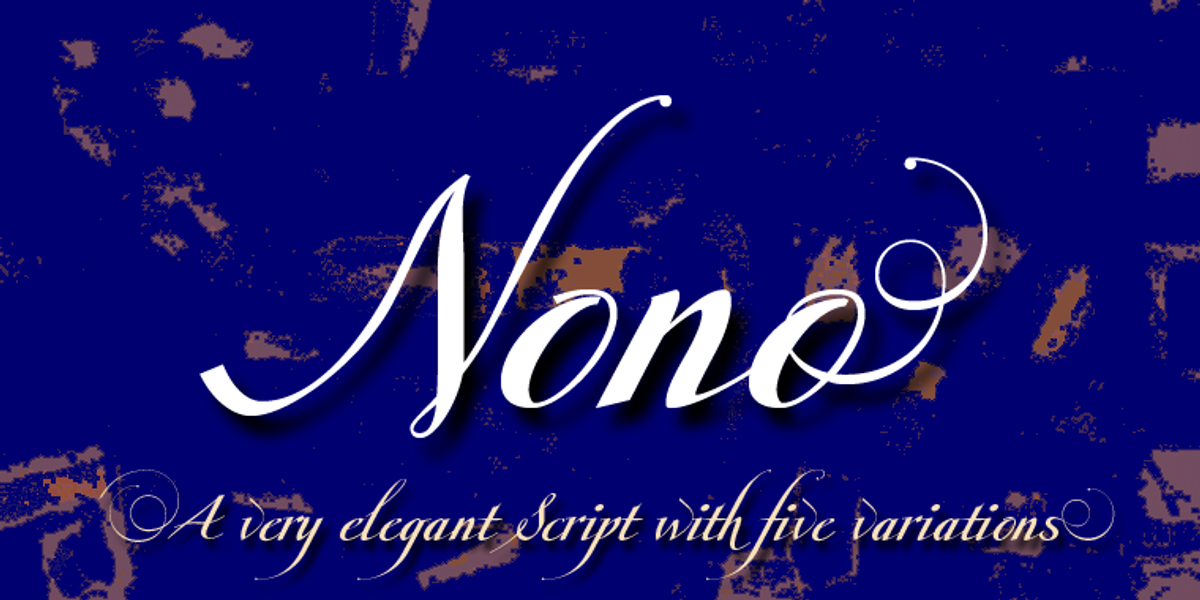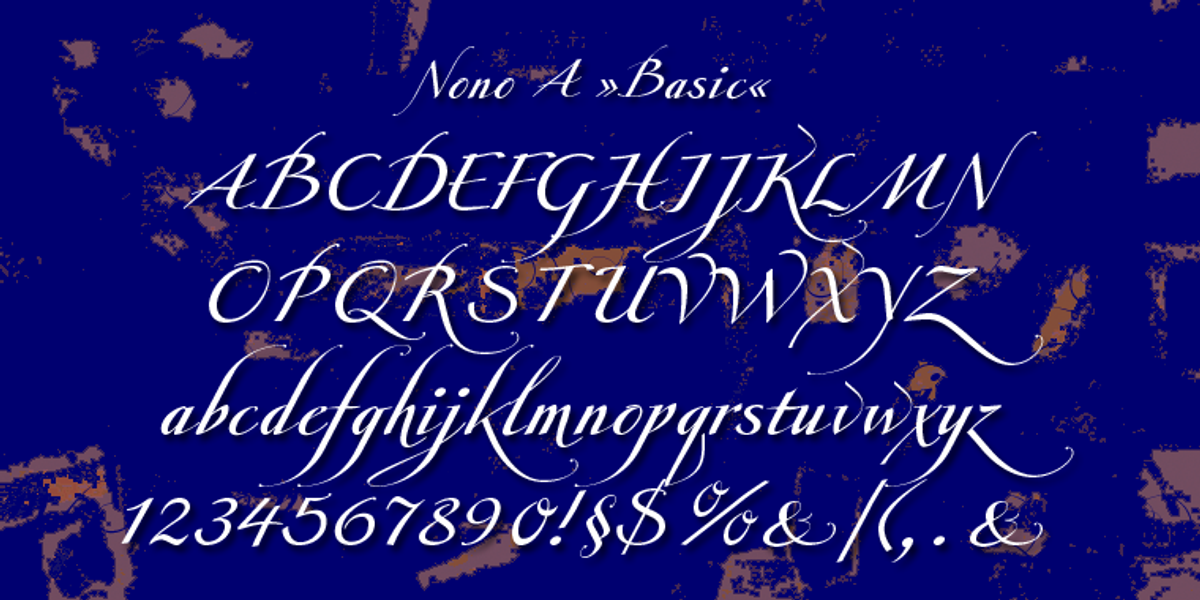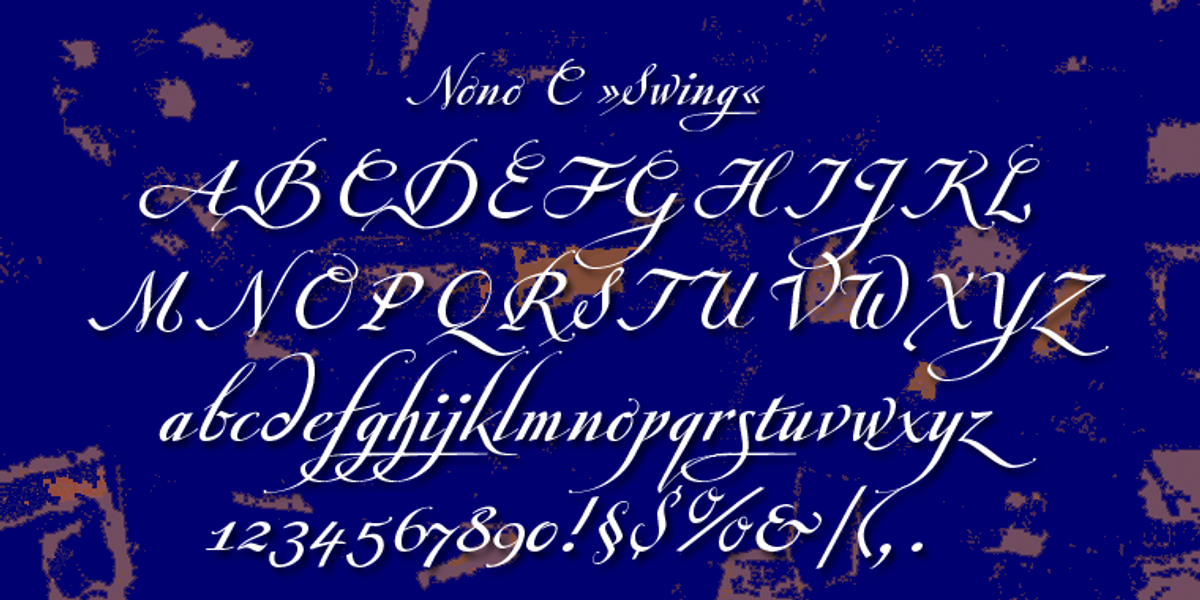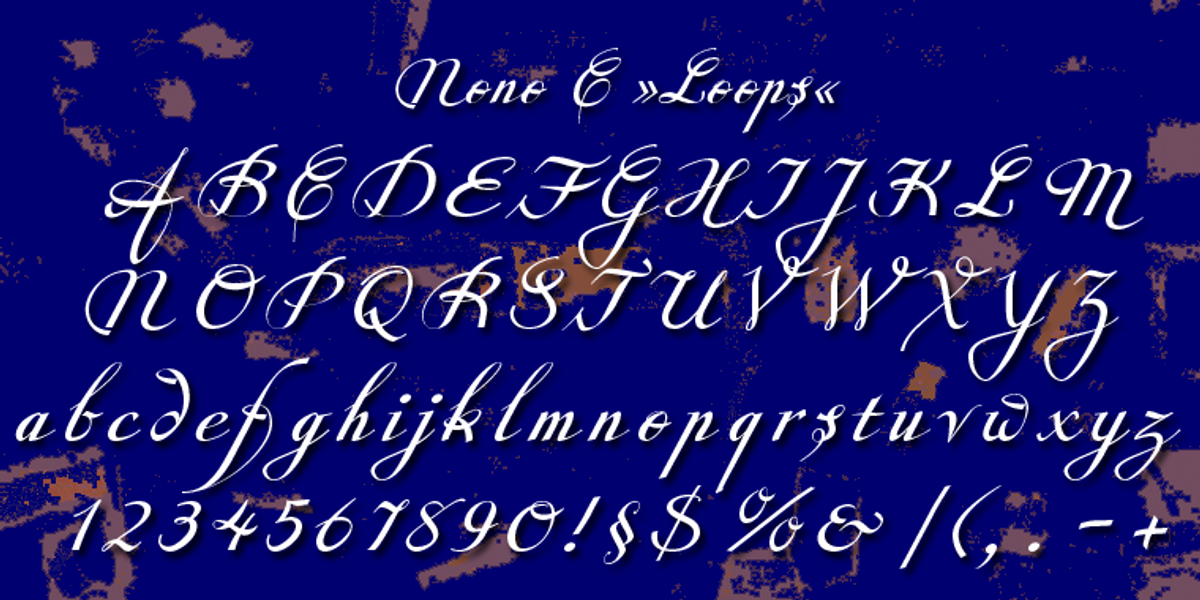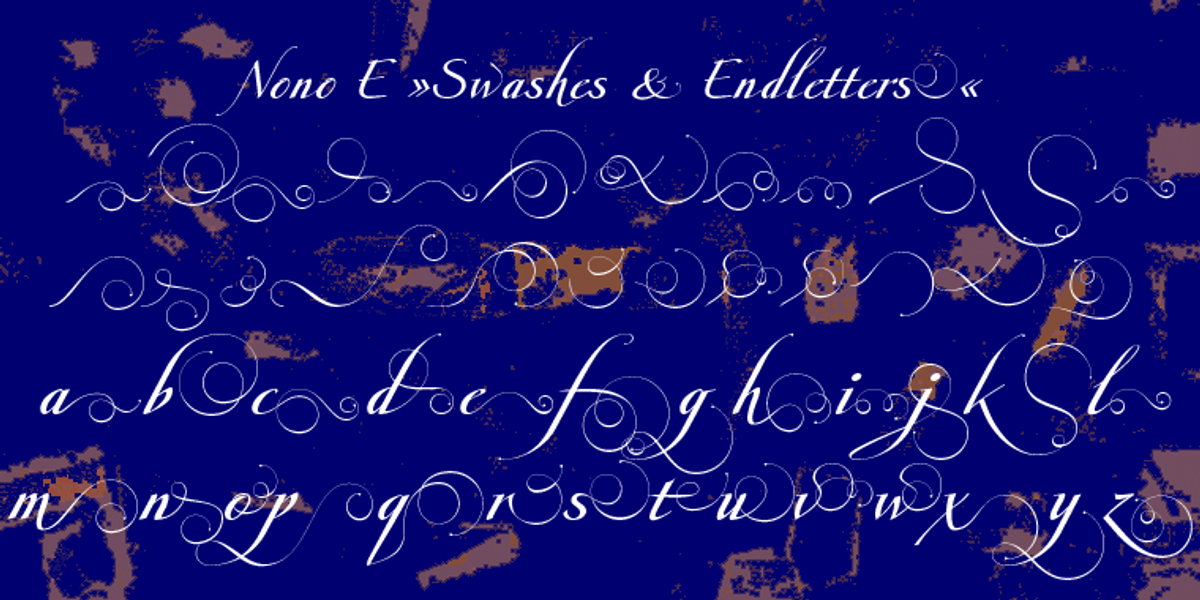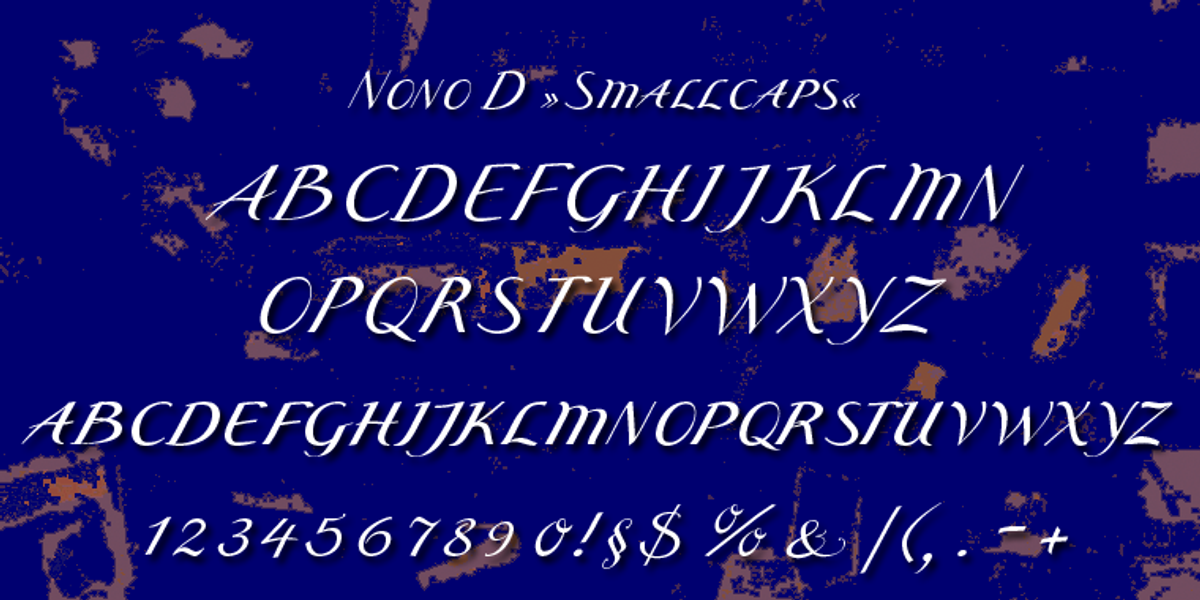
Nono
Nono is a formal script font designed by Gert Wiescher. It features elegant handwriting with swashes and curly details. The font also includes small caps and optional dingbats for added embellishment.